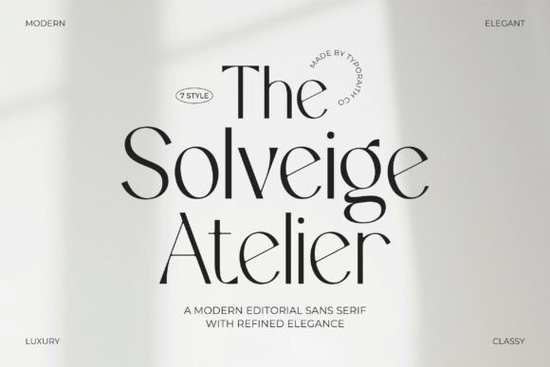
If you're looking for a modern, elegant typeface that works as well on a boutique business card as it does in a digital lookbook, The Solveige Atelier Font is worth your attention. It’s not flashy or overly decorative instead, it offers quiet confidence through clean lines, balanced spacing, and subtle curves. Think of it as the kind of font you’d see in a well-edited fashion magazine or on the packaging of a small-batch skincare brand: refined, intentional, and quietly luxurious.
What makes Solveige Atelier different from other modern sans-serifs?
Many modern fonts lean heavily into minimalism but sometimes that means sacrificing warmth or character. Solveige Atelier avoids that trade-off. Its letterforms have gentle tapering, soft terminals, and just enough contrast in stroke weight to feel human not mechanical. It’s designed to be legible at small sizes (great for product tags or web body text) but also holds its own in large display settings like posters or social media banners.
The family includes seven styles: Light, Regular, Medium, SemiBold, Bold, ExtraBold, and Black plus matching italics for all weights. That gives you real flexibility without jumping between unrelated fonts. You can use Light for delicate captions, Bold for headlines, and ExtraBold for short hero text all while keeping visual harmony across your project.
Who is this font best suited for?
Small business owners building a cohesive brand especially in lifestyle, beauty, wellness, or home goods will find Solveige Atelier especially useful. Its tone supports premium positioning without feeling cold or corporate. If your goal is “approachable luxury,” this font delivers.
Print-on-demand sellers will appreciate how well it scales. Whether you’re designing minimalist mugs, linen tea towels, or greeting cards, the font stays crisp and readable at any size. It also pairs well with subtle textures or muted color palettes no need to overdesign around it.
Designers and crafters who work across both digital and physical media benefit from its versatility. It exports cleanly to SVG for Cricut or Silhouette projects, renders smoothly in Canva and Adobe apps, and looks consistent whether printed on recycled paper or displayed on an iPad.
Where can you use it right away?
- Branding assets: Logo lockups, business cards, email headers
- Product design: Labels, packaging, hang tags, stickers
- Digital content: Instagram carousels, Pinterest pins, website headings
- Craft projects: Vinyl decals, embroidery digitizing (as vector outlines), sublimation designs
One practical note: because it includes full Latin character sets, multilingual support (including accented characters used in French, Spanish, and Portuguese), and OpenType features like ligatures and stylistic alternates, it’s ready for real-world use not just mockups. You won’t need to swap fonts mid-project to accommodate special characters.